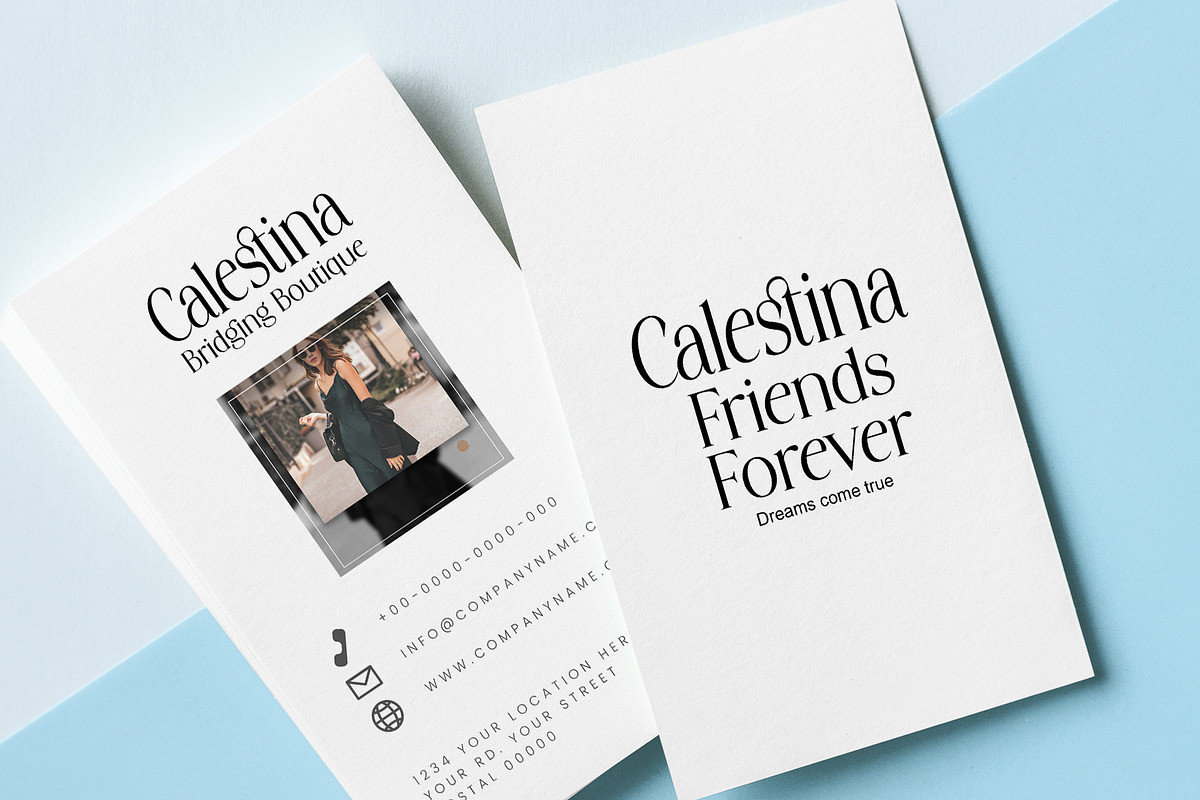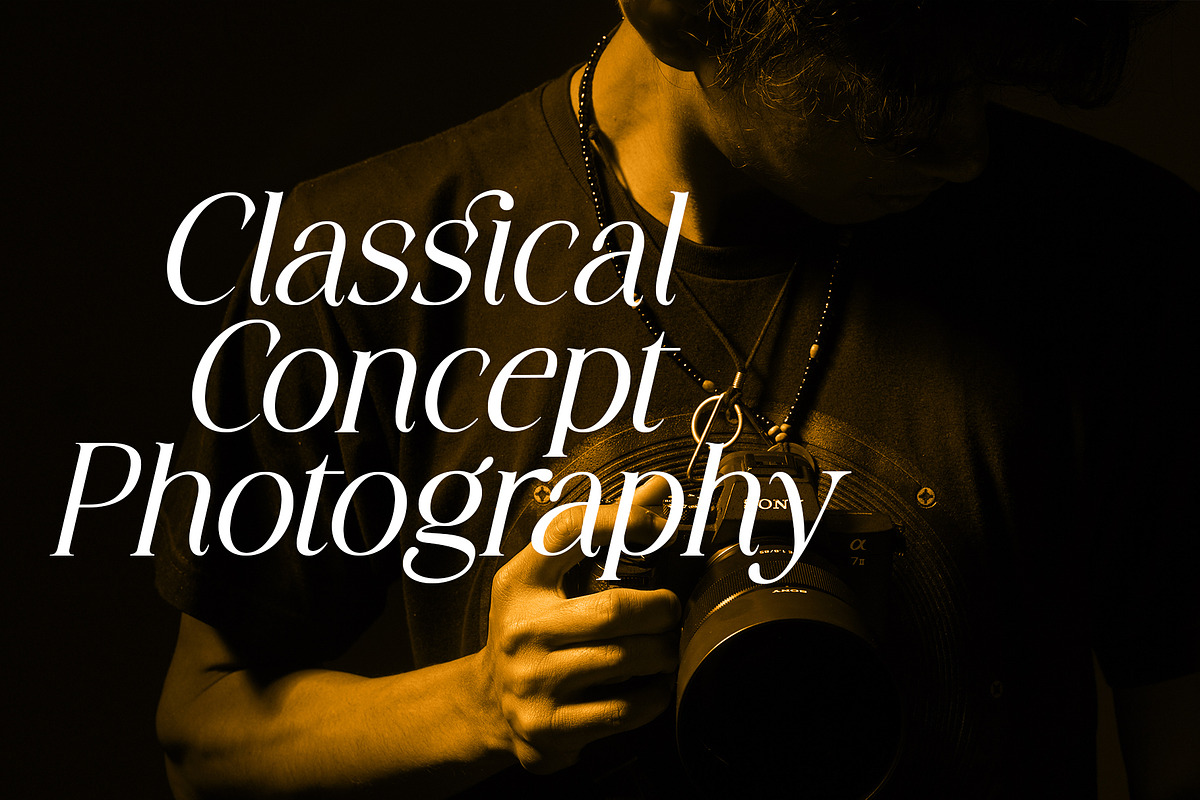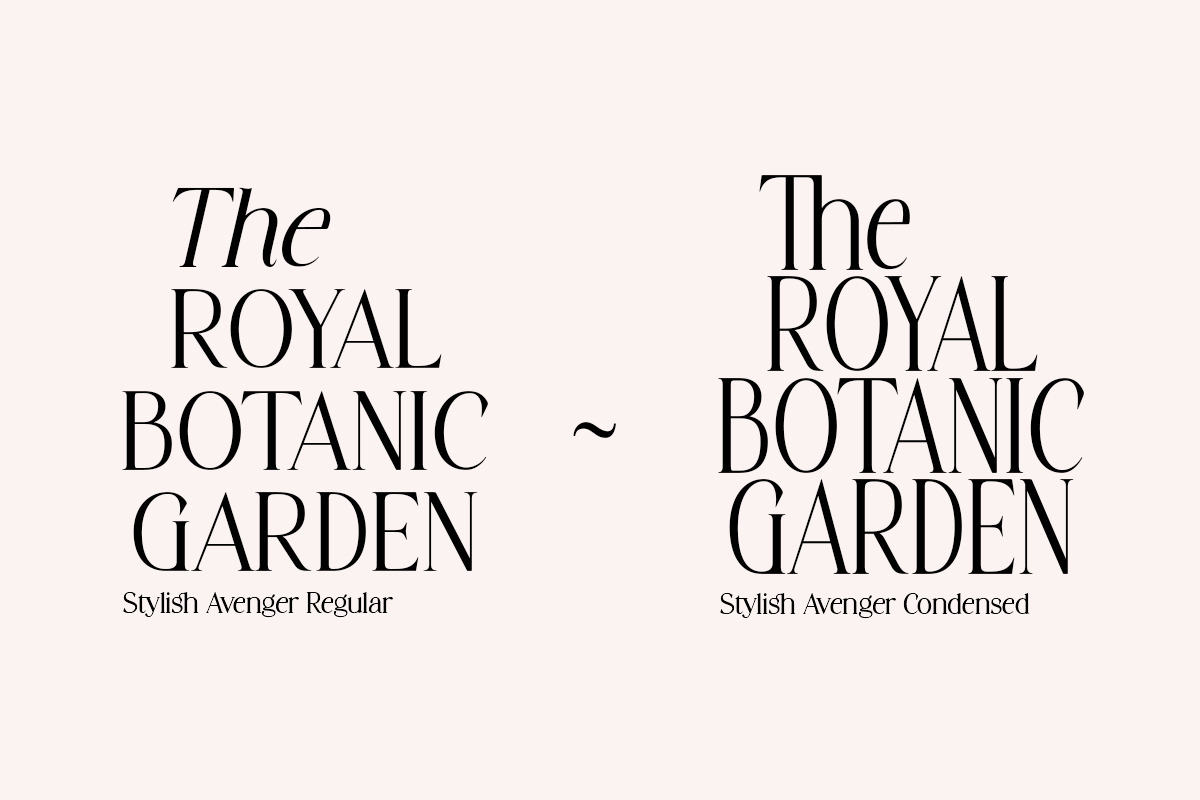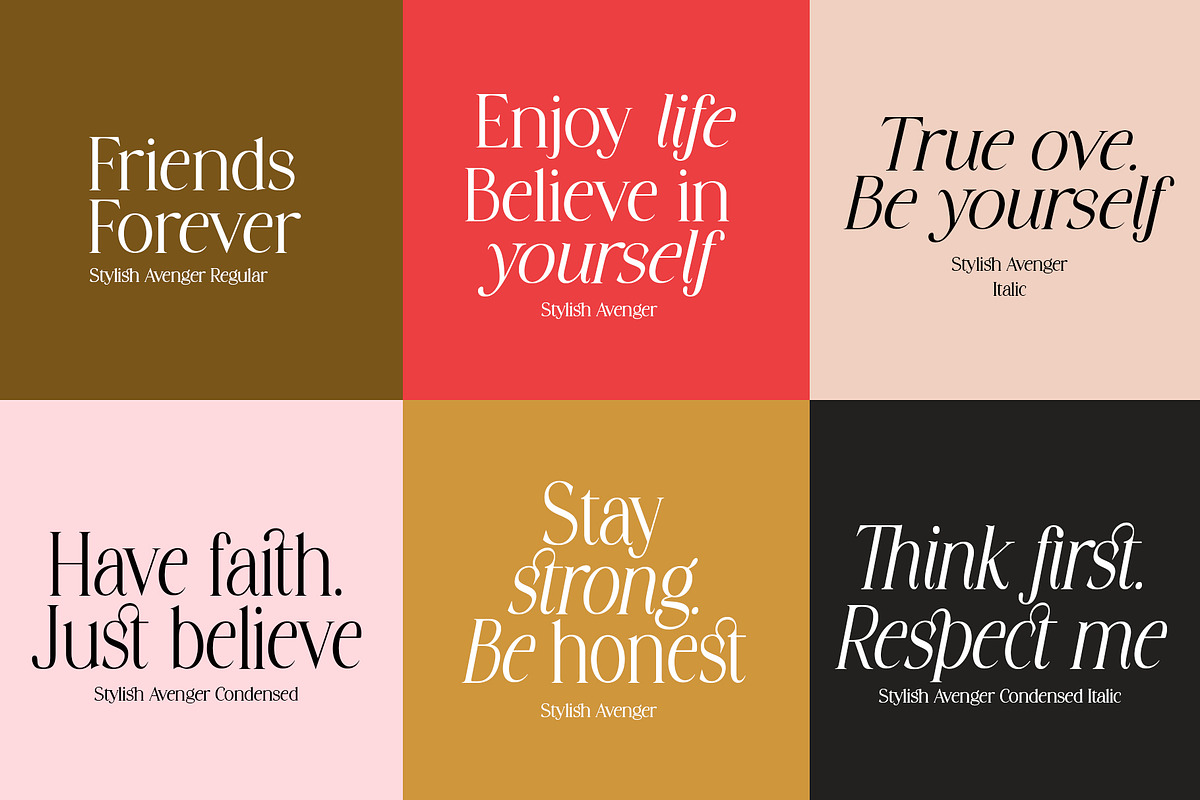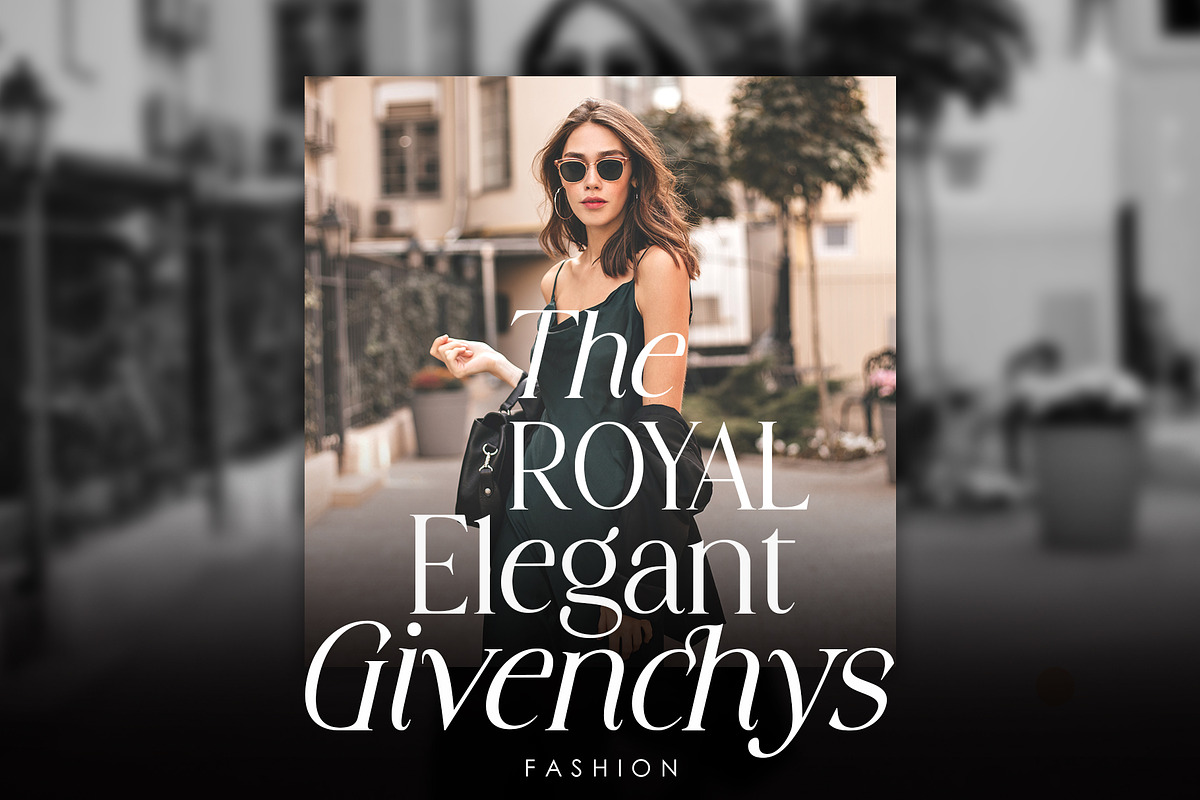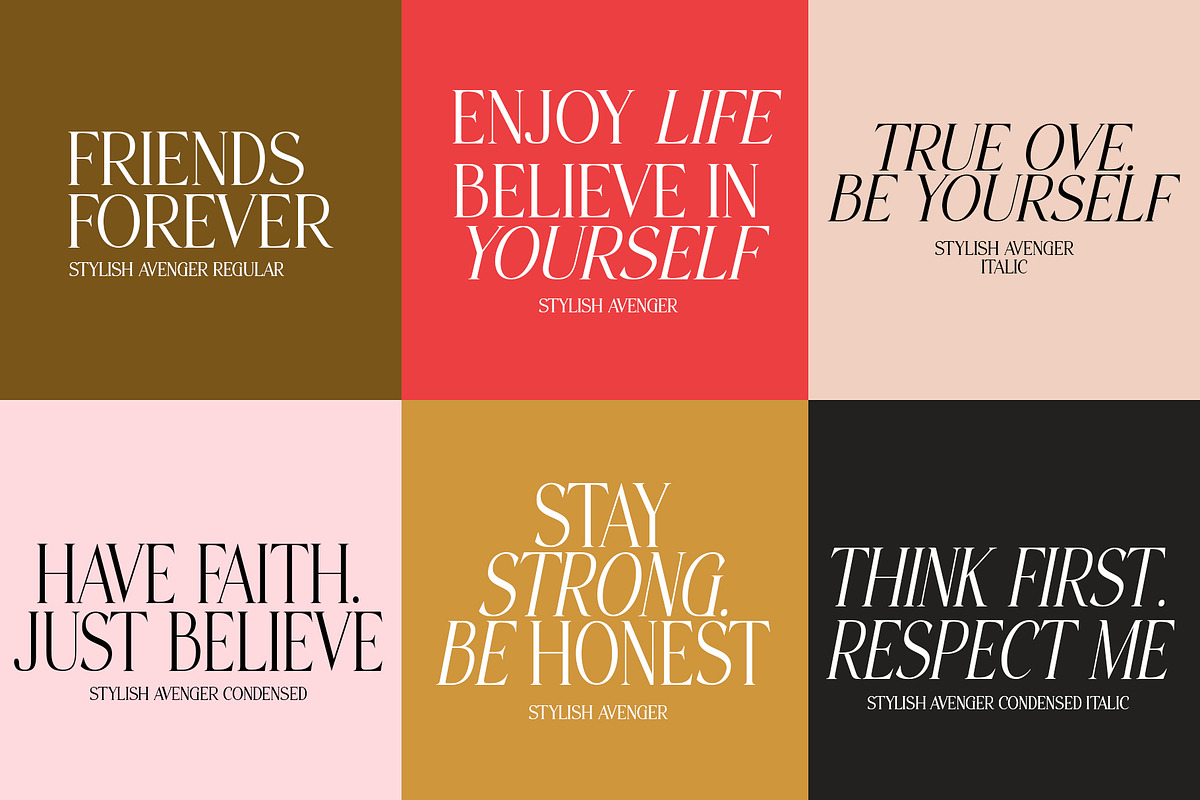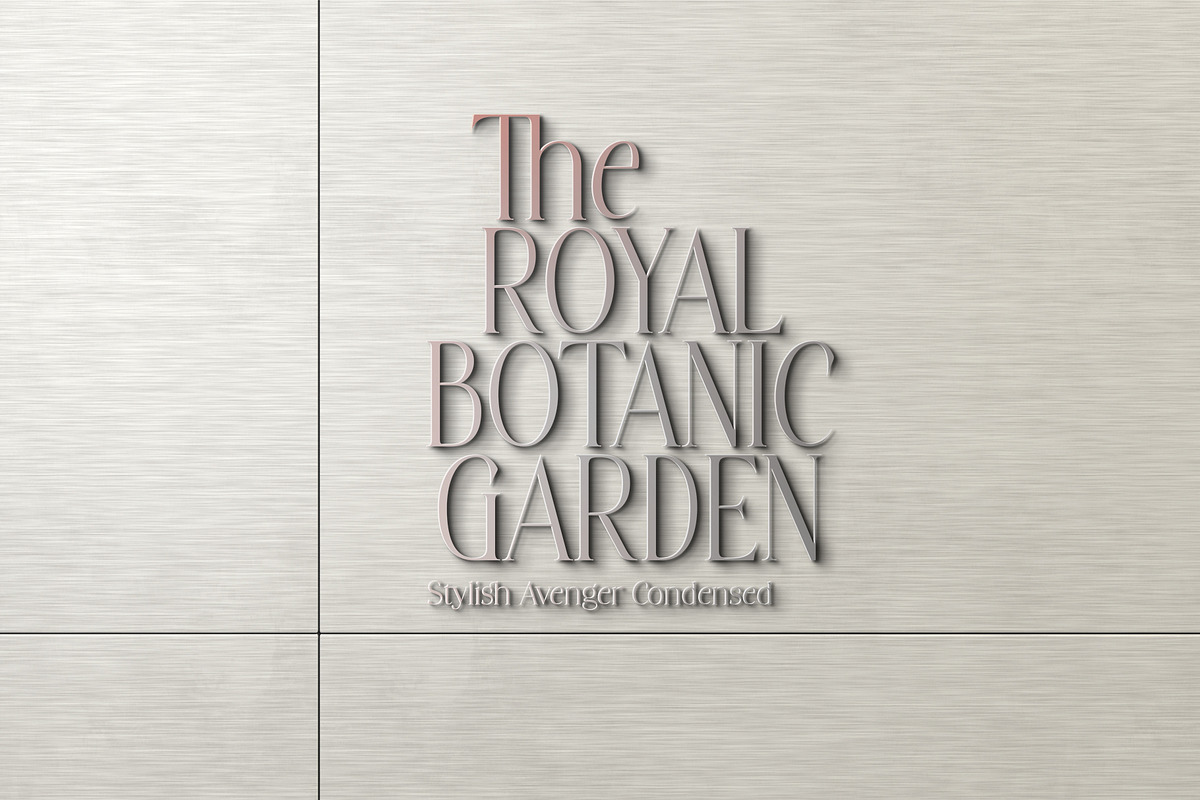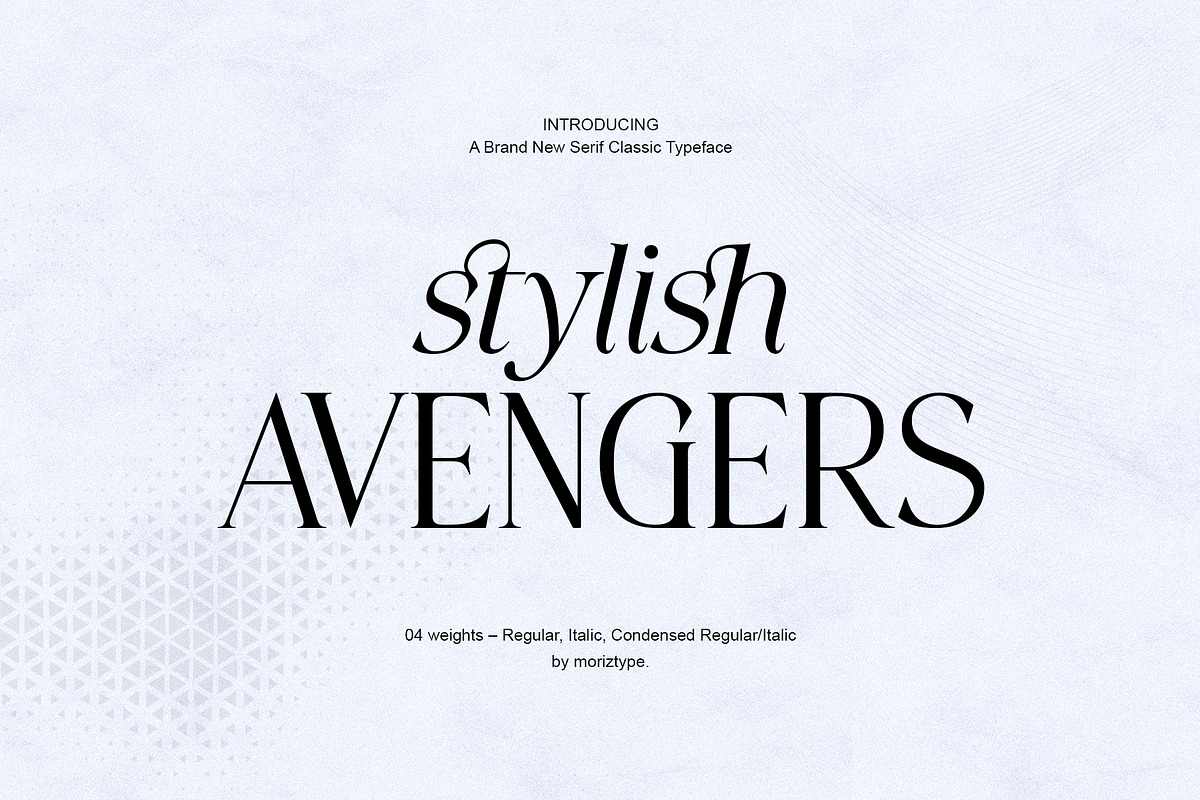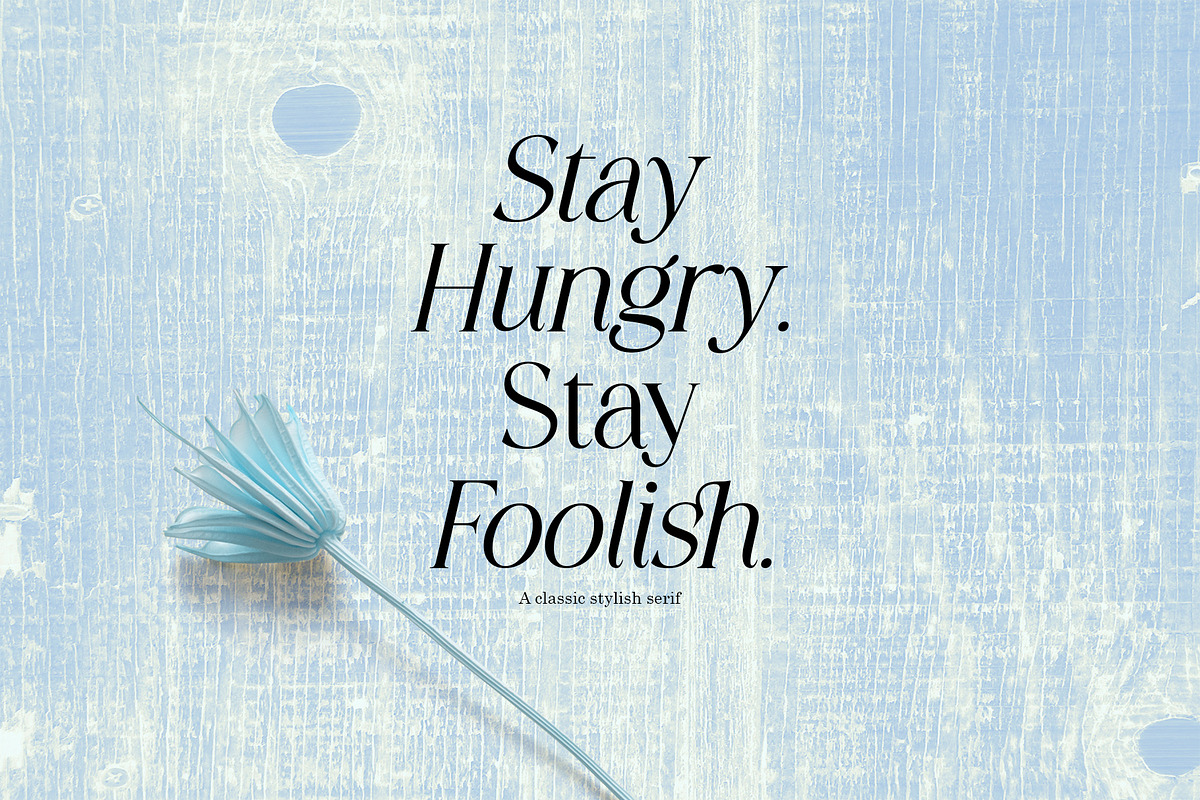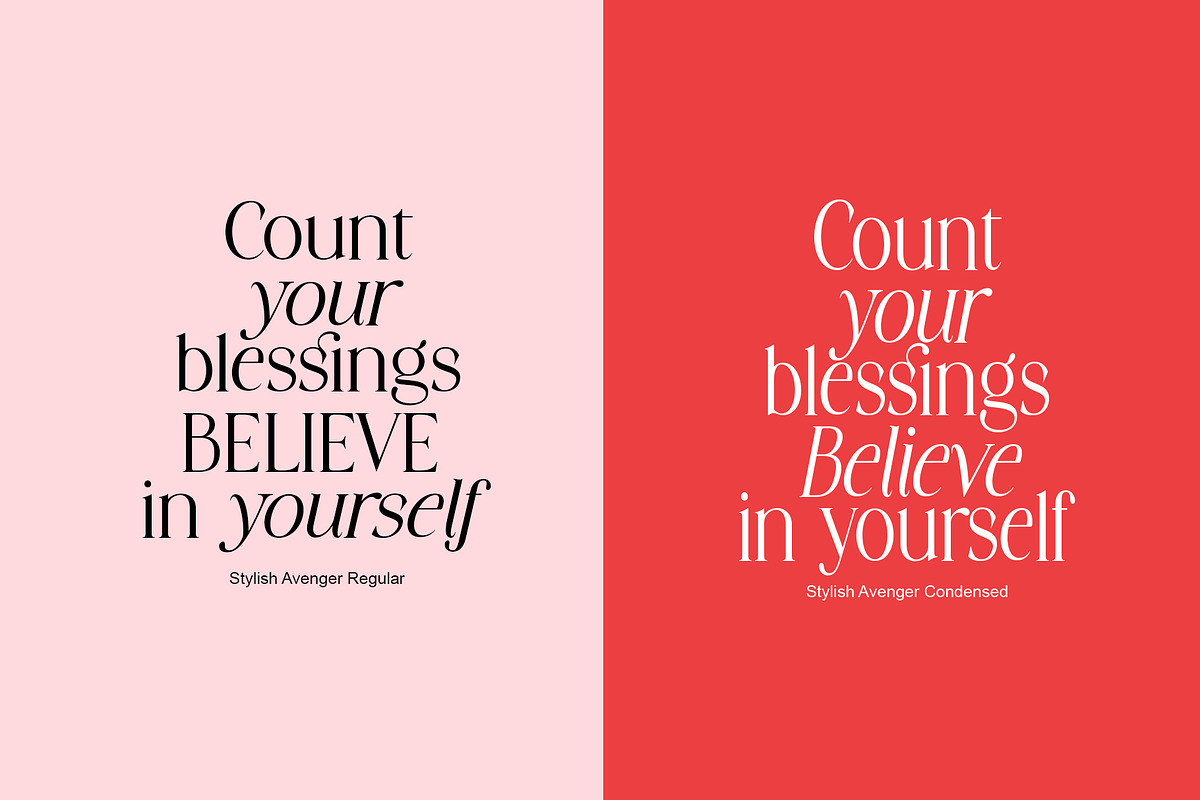
Stylish Avengers Serif Family
Introducing Stylish Avenger – a brand new serif with all the clean lines, tight curves, and trendy minimalist vibes!
Stylish Avenger is a stunningly crisp upper and lowercase typeface that looks incredible in both large settings as a display text (think big headers, pretty quotes, calls to action, etc.).
The Stylish Avenger family includes:
04 weights – Regular, Italic, Condensed Regular/Italic